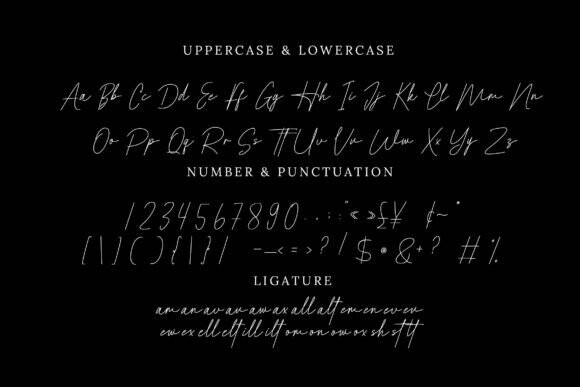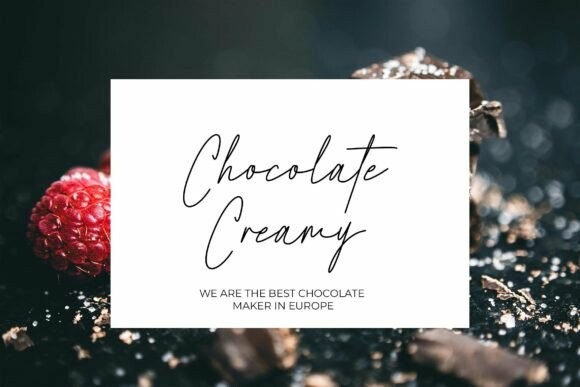
Harmonis Font
Designer: Letterday Studio
harmonis Font is a very stylish and cool handwritten font. This font is suitable for logos, fonts, labels, stationary, social media posts, weddings, photography watermarks and many more. The font is available uppercase, lowercase, number, punctuation, and ligature which can be used easily